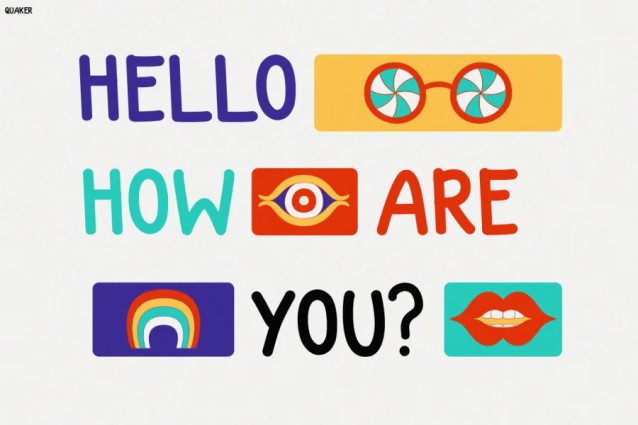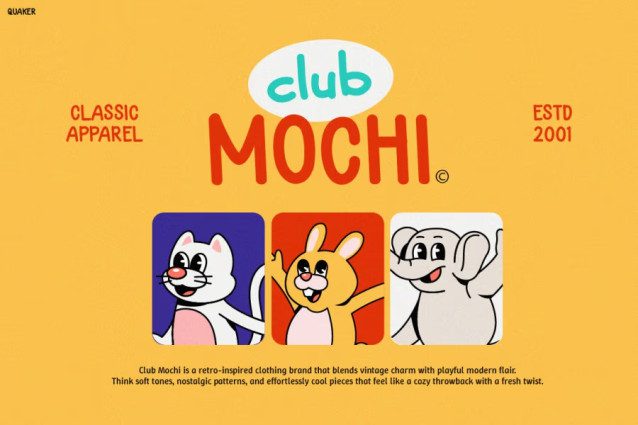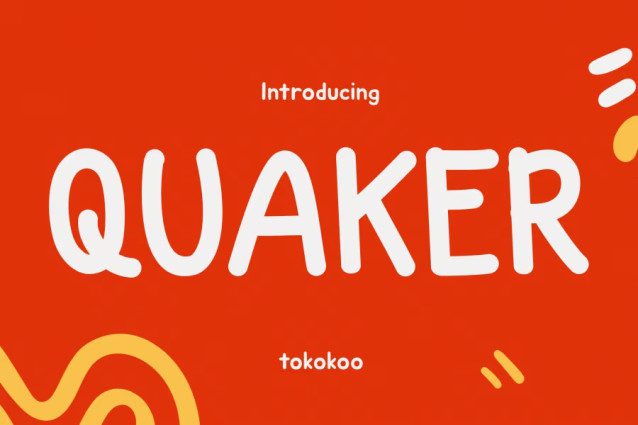
Quaker Font
Quaker Font is a delightful typeface that brings imagination and joy to life! From the very first glance, it radiates positivity and charm. Designed with soft curves and quirky letterforms, this font perfectly captures the colorful energy of childhood. Moreover, its balanced structure between playfulness and readability makes it both fun and functional.
Every letter feels alive with character—making your text dance with a friendly rhythm. In addition, the handcrafted aesthetic gives your projects an authentic and spontaneous touch. Whether you use it for packaging, posters, or digital content, Kids Font Quaker easily stands out and draws smiles everywhere. Therefore, it’s not just a font—it’s an instant mood-lifter that makes your message feel happy and human.
Furthermore, the design’s thoughtful proportions ensure excellent readability even at smaller sizes. As a result, you can confidently use it across both print and digital platforms. Its cheerful vibe, combined with smooth curves and rounded edges, adds a modern twist to any playful design.